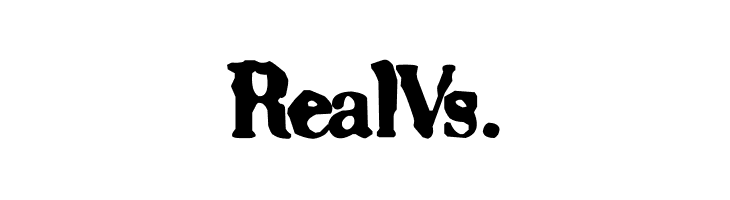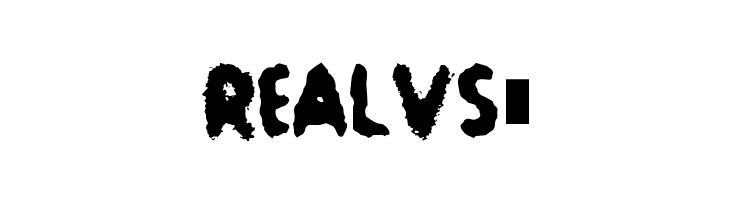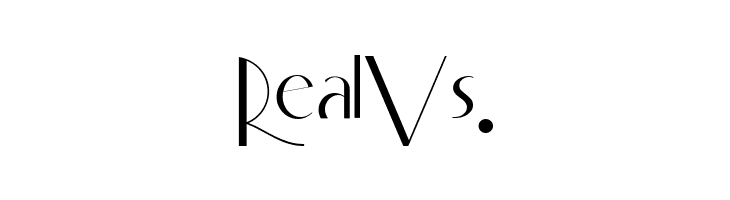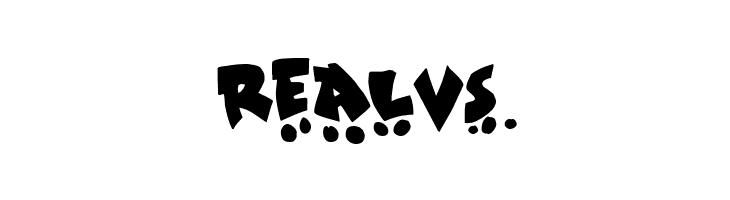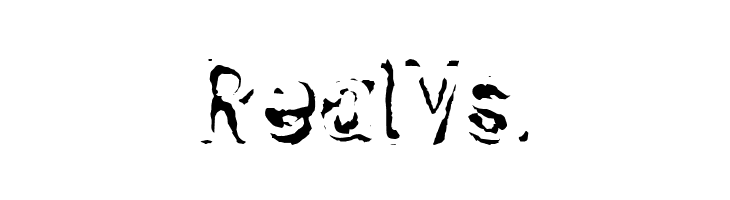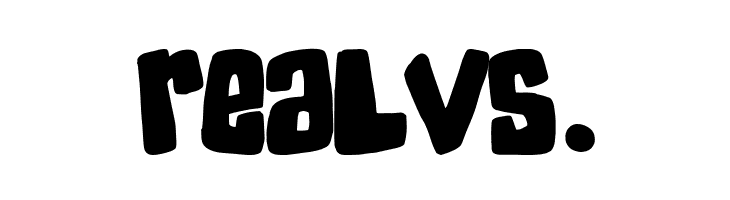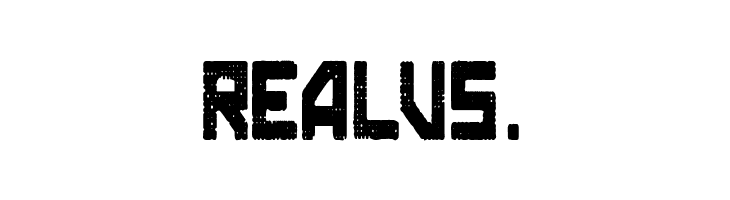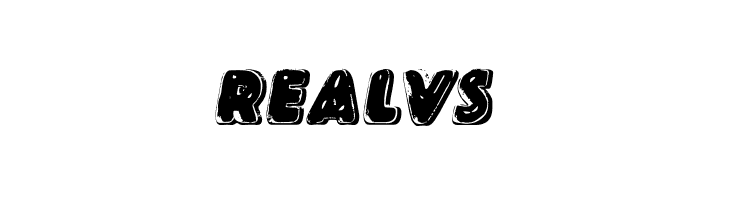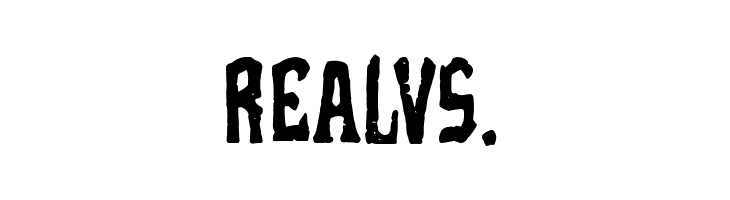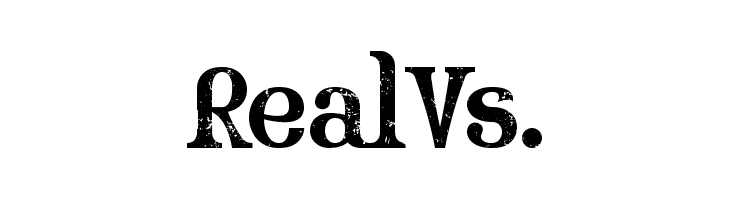
A rugged, distressed font with a hand-carved, organic appearance.
A bold, grunge-style font with a textured, vintage appearance.
A bold, textured font with a hand-painted, distressed appearance.
A bold, distressed font with a stamped, grunge aesthetic.
A bold, playful font with a graffiti-like, urban style.
A bold, playful font with a graffiti-inspired style and irregular shapes.
A bold, playful font with an edgy, graffiti-inspired style.
A bold, playful font with an urban, graffiti-inspired style.
A bold, playful font with a youthful, urban vibe and rounded, chunky characters.
A bold, distressed font with a grunge-like, hand-drawn appearance.
A creative and eclectic display font with unique patterns and textures for each character.
A bold, modern font with sharp angles and unique serifs.
A bold, high-contrast font with angular serifs and dynamic style.
A bold, textured, and slightly italicized font with a playful and creative style.
A bold, textured font with a digital, tech-inspired aesthetic.
A graffiti-inspired font with bold, jagged strokes and an urban, edgy style.
A bold, distressed font with a ransom note style.
A playful, handwritten font with smooth, rounded edges and a casual style.
A bold, textured font with a distressed, vintage appearance.
A bold, playful font with rounded, chunky characters and a whimsical style.
A bold, playful font with exaggerated curves and a whimsical style.
A high-contrast, elegant font with artistic flourishes and a modern aesthetic.